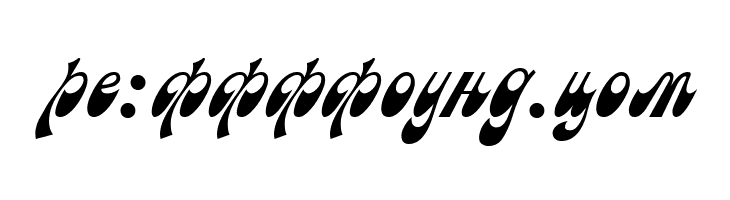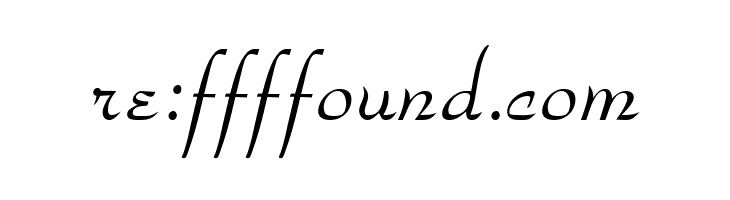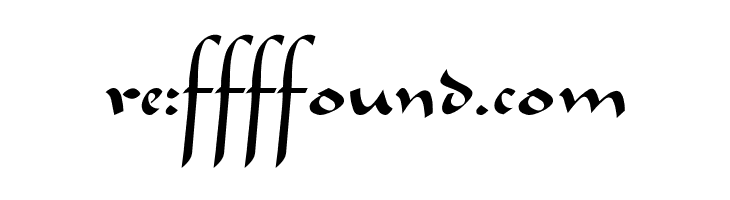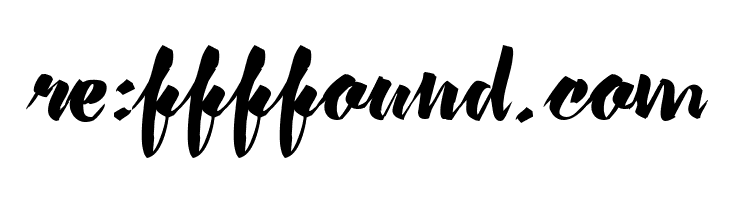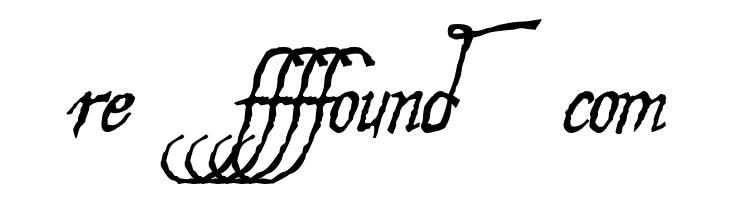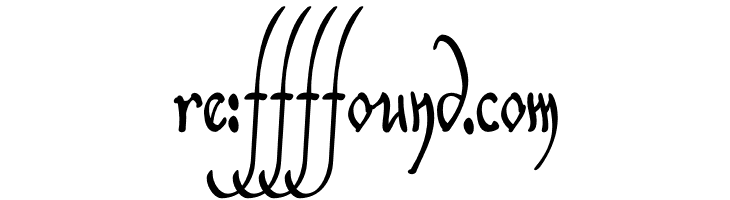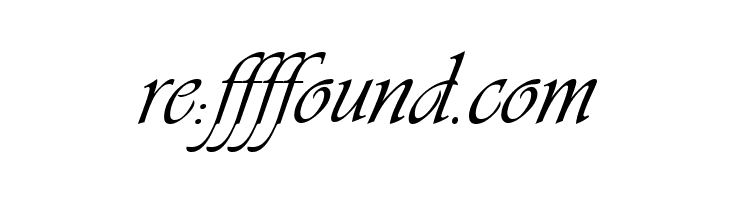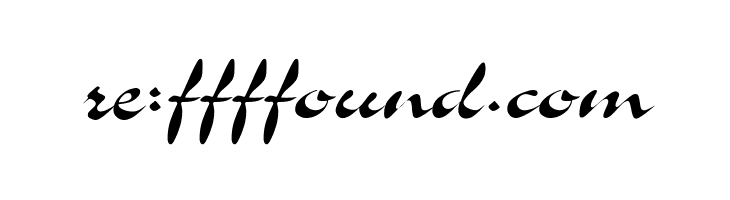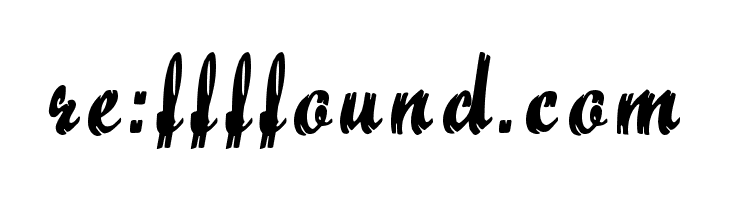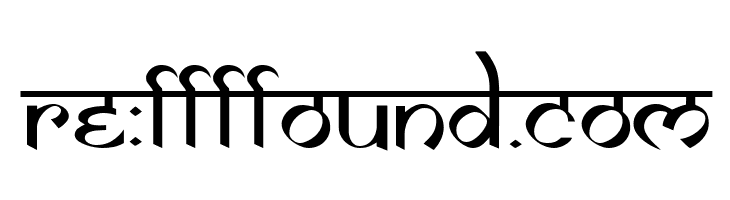
An ornate, decorative font with calligraphic elegance and intricate flourishes.
A decorative serif font with calligraphic flourishes and artistic lowercase letters.
A bold, dynamic script font with high contrast and decorative flourishes.
An elegant script font with flowing, calligraphic elements and ornate flourishes.
A dynamic, calligraphic font with bold, flowing strokes and artistic flair.
An elegant script font with intricate, flowing lines and high contrast strokes.
A bold, Celtic-inspired font with angular strokes and artistic flair.
A bold, brushstroke-style font with high contrast and dynamic energy.
A bold, brush-style font with high contrast and dynamic, condensed characters.
An elegant cursive font with flowing, calligraphic strokes.
An elegant, flowing script font with calligraphic style.
A dynamic, calligraphic font with sharp, angular strokes and high contrast.